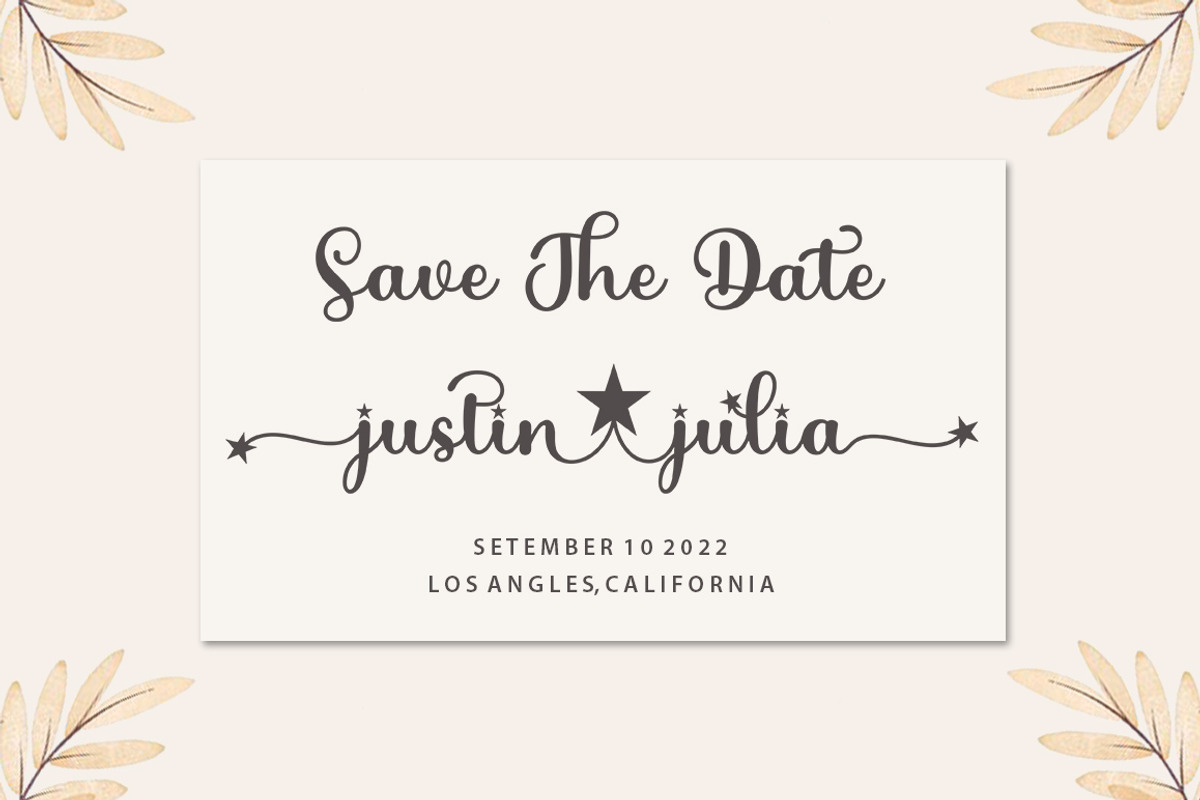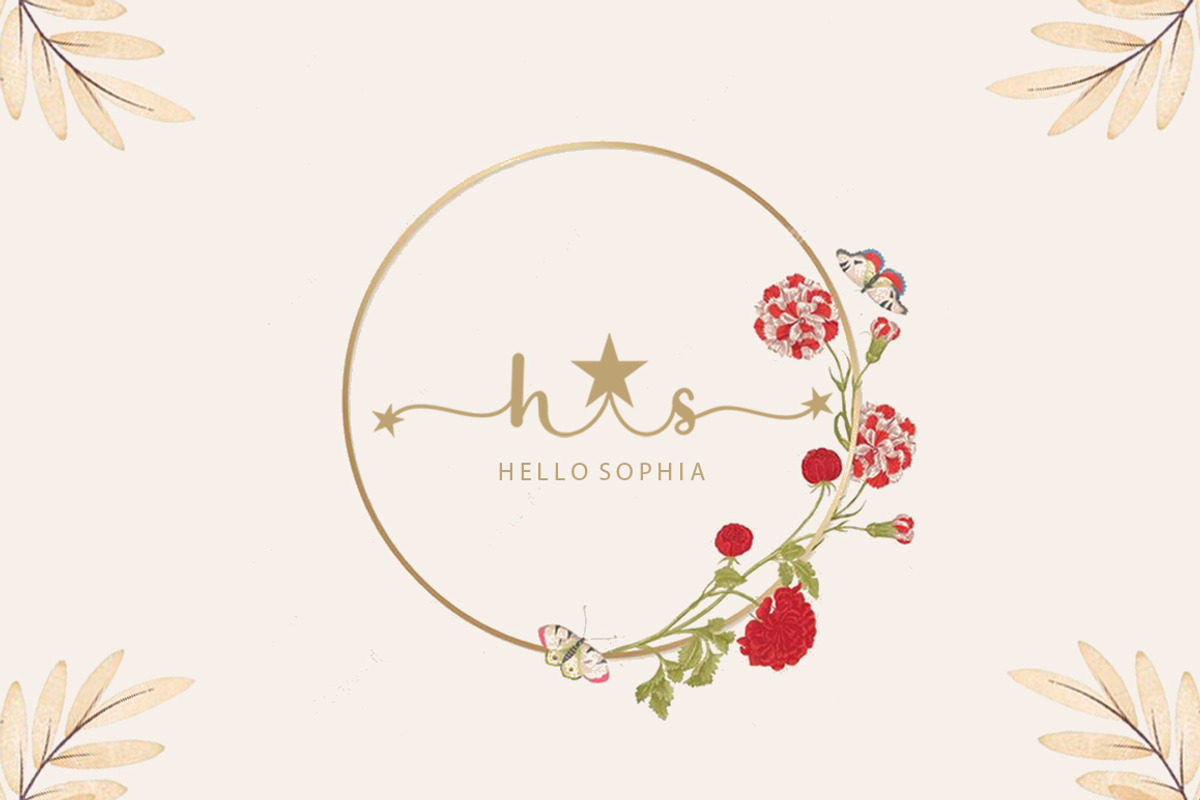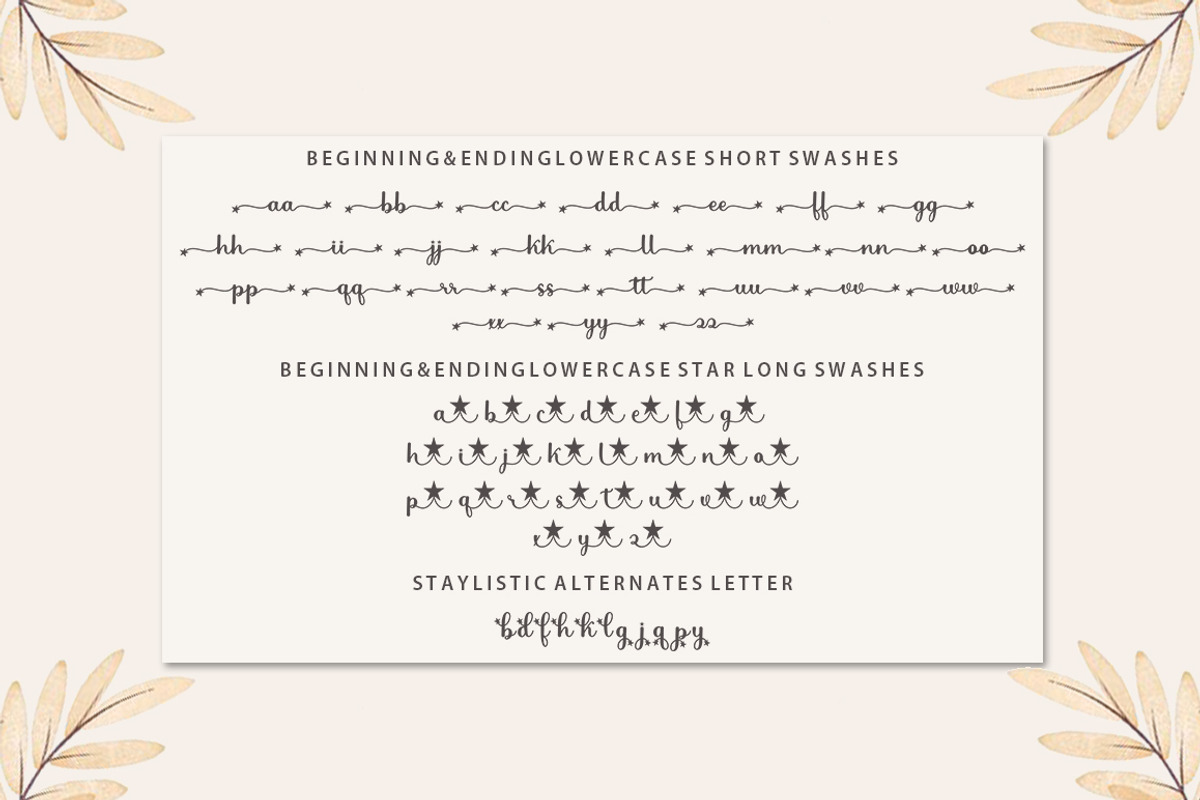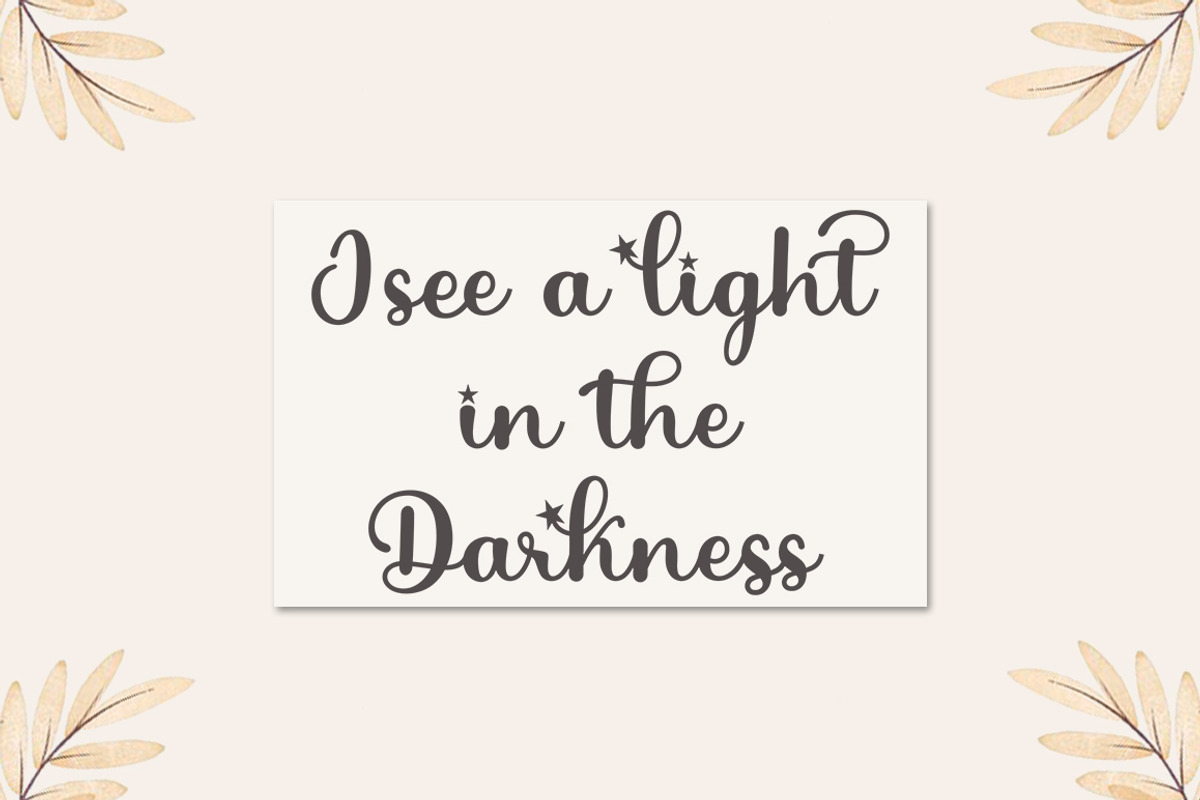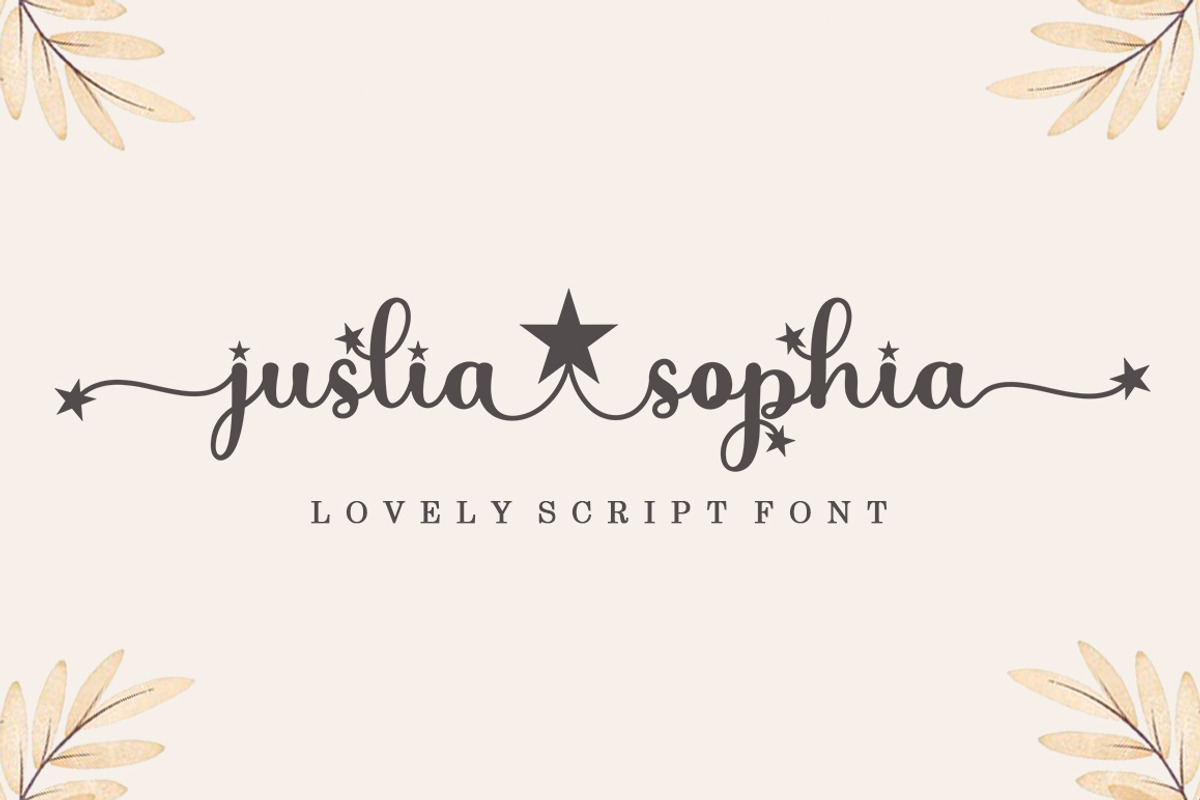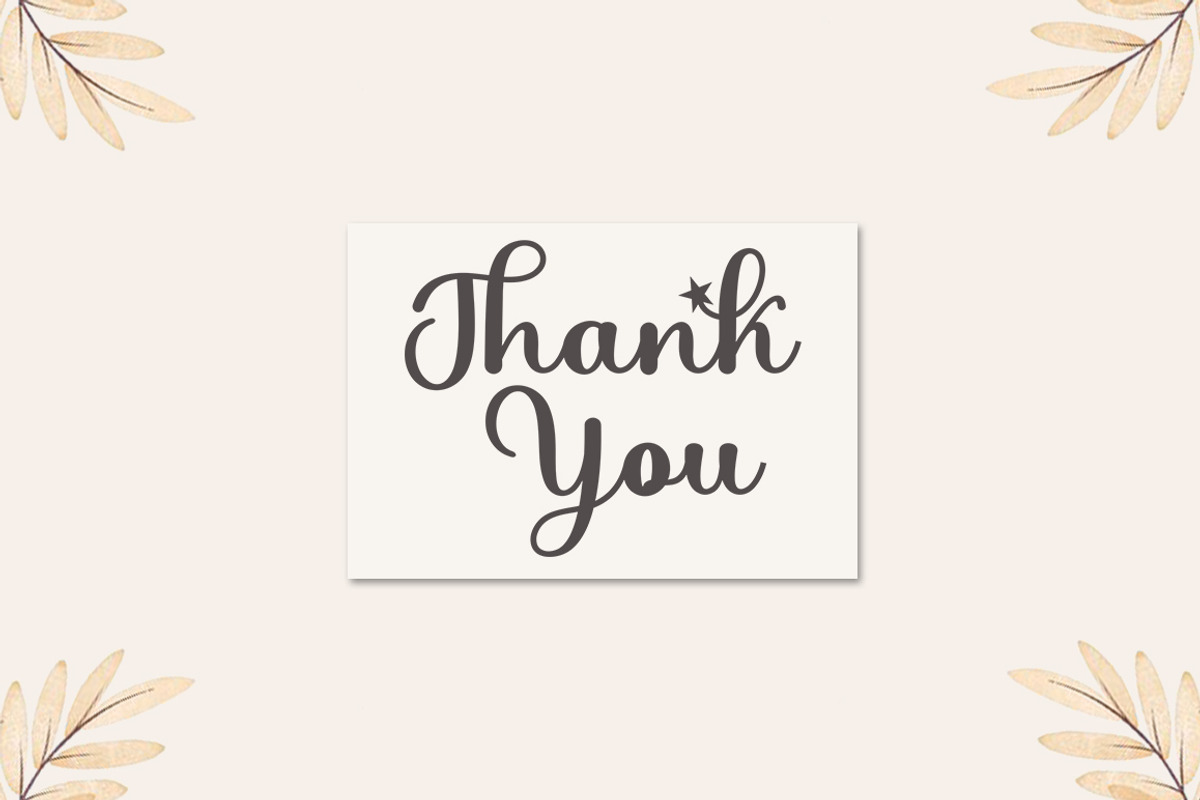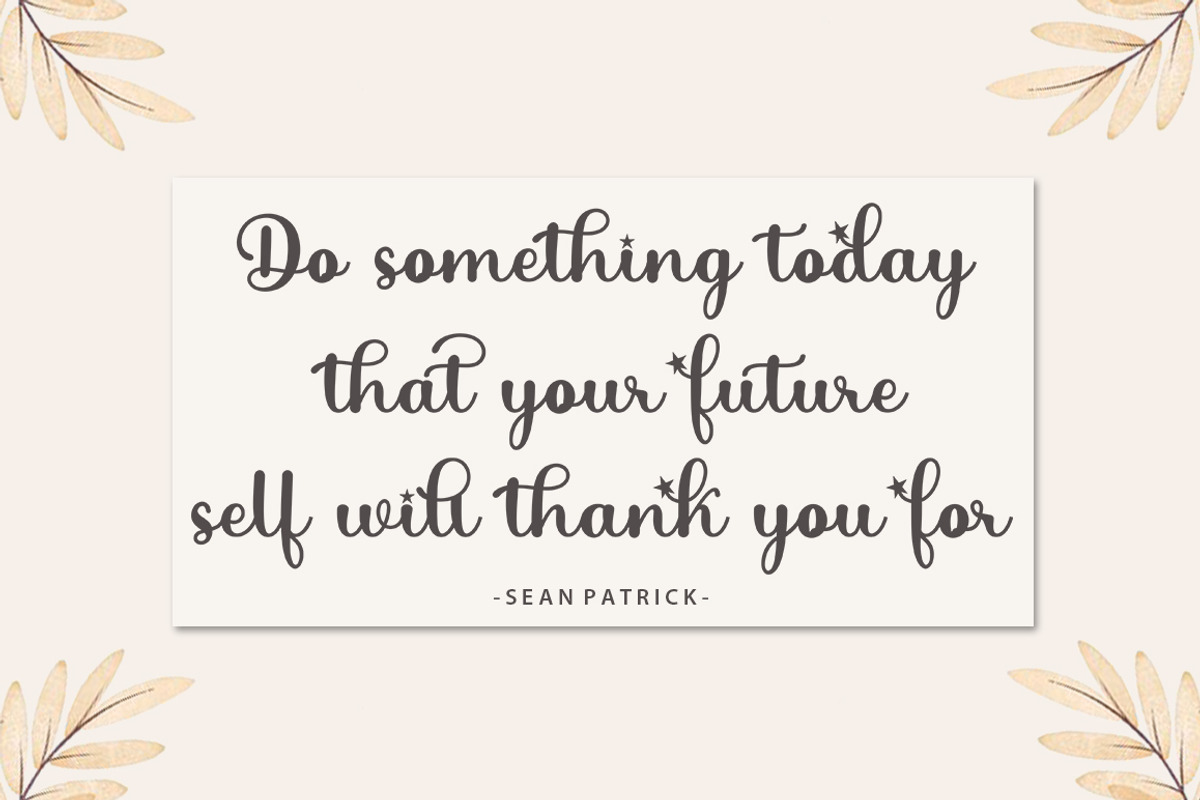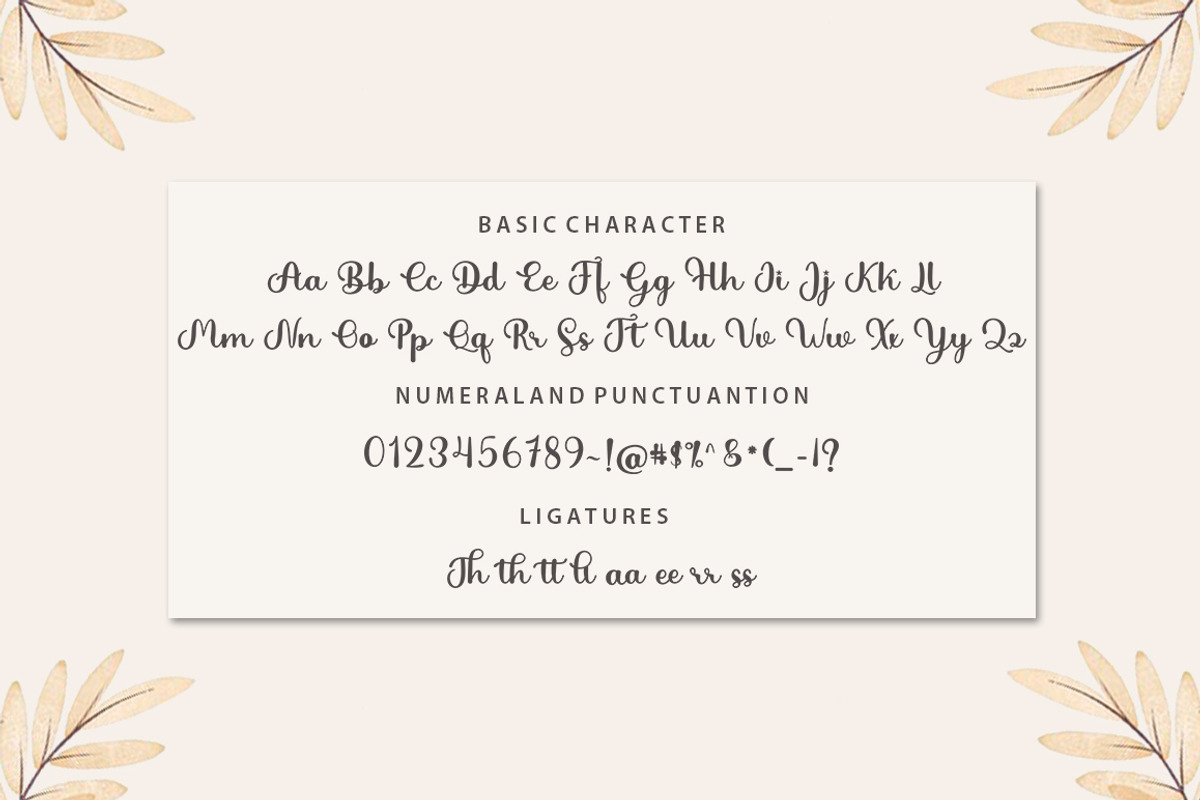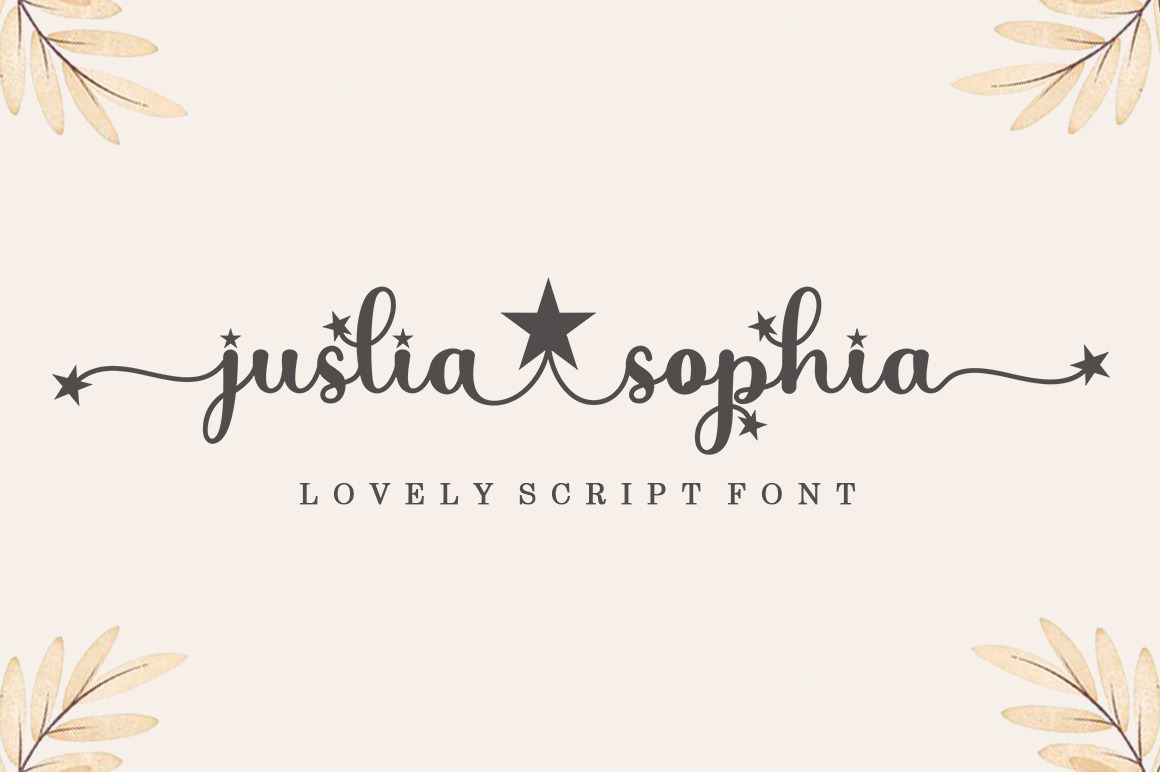
juslia sophia - a unique script font
Introducing
Juslia Sophia in a beautiful handwritten style. Equipped with 300 glyphs Juslia Sophia is perfect for branding projects, home appliance design, product packaging, use in business cards, invitation cards, etc. Simply as a stylish text overlay onto a background image or anything that requires a touch of elegance.